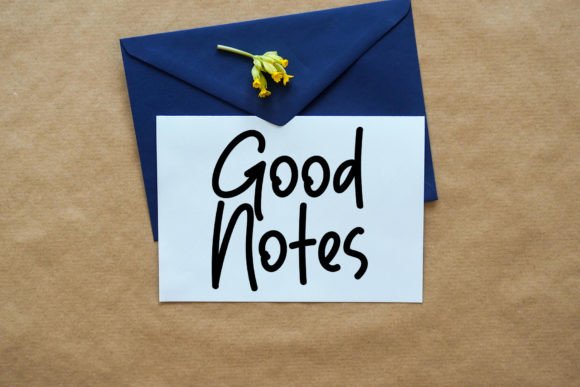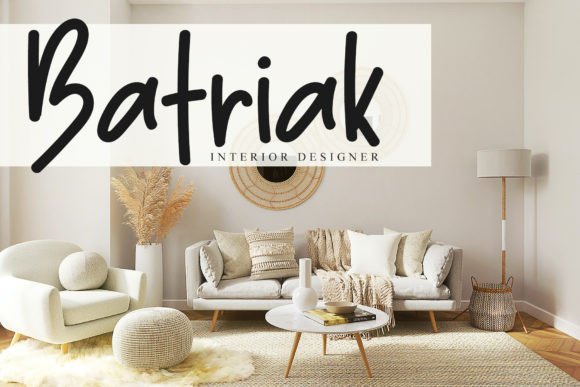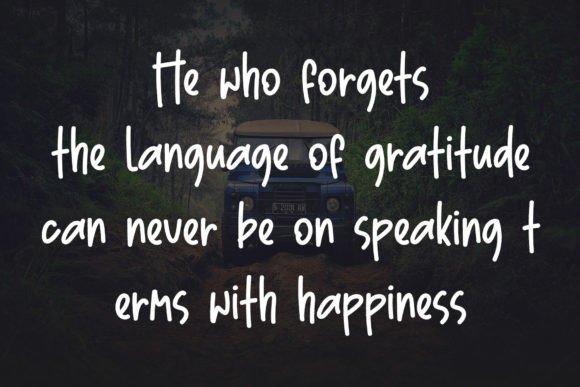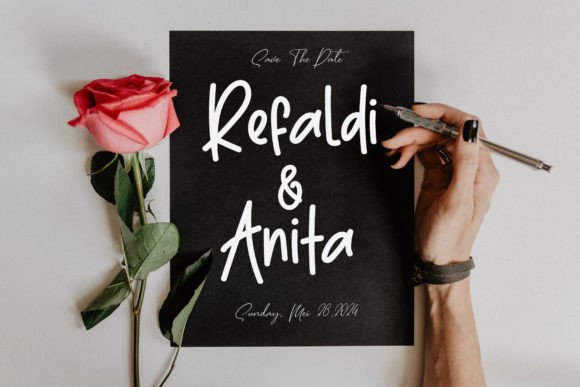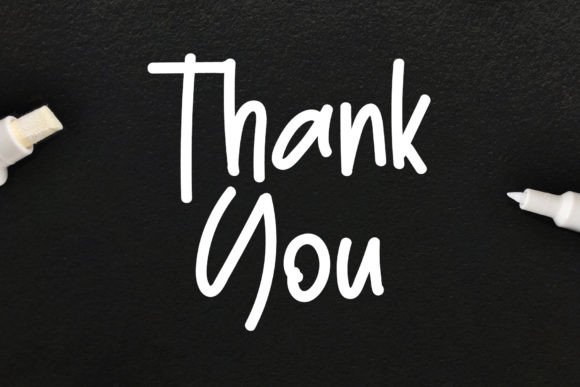
Introduction to Mister Perfect Font
Introducing Mister Perfect – an exquisite display font that breathes life into magazines and crafts.
With its enchanting aesthetics, this font marries style with functionality Incorporate it into your font library and watch it transform your designs into spectacular visual narratives.
Key Features of Mister Perfect Font
Why Choose Mister Perfect Font?
Mister Perfect Font offers exceptional quality and versatility, making it a valuable addition to your design toolkit. Whether you’re creating for personal projects or commercial use, Mister Perfect Font delivers professional results.